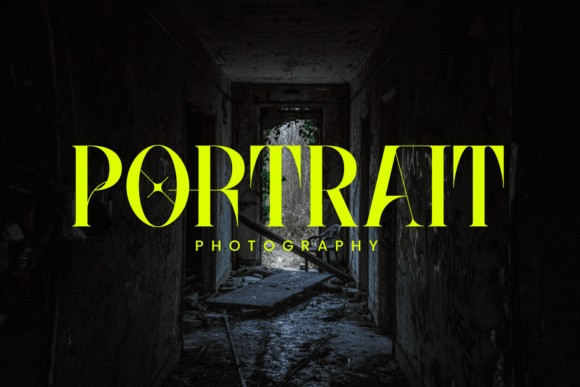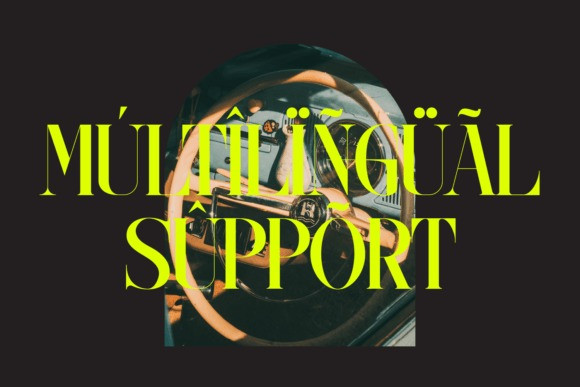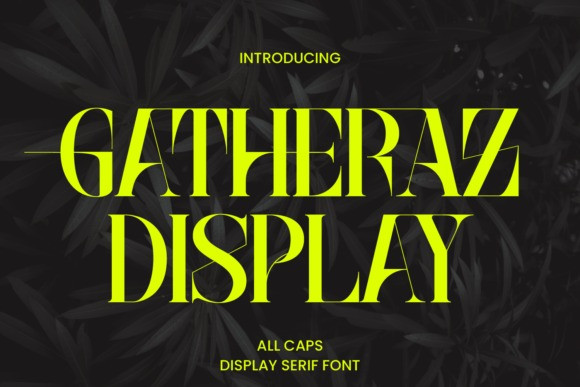
Gatheraz Font
Gatheraz Font – Stylish Display font. Its elegant and cool look makes it the perfect choice for logos, branding, invitations, stationery, wedding designs, social media posts, and so much more. Gatheraz font is PUA encoded which means you can access all of the glyphs.